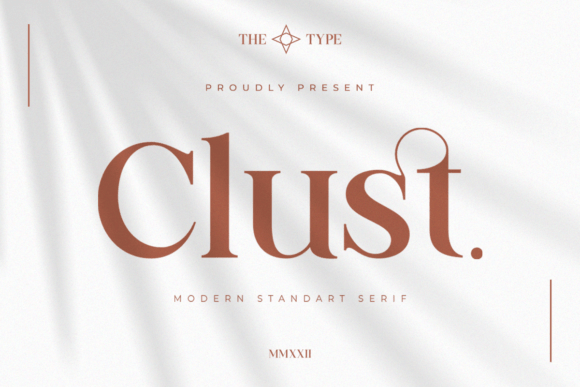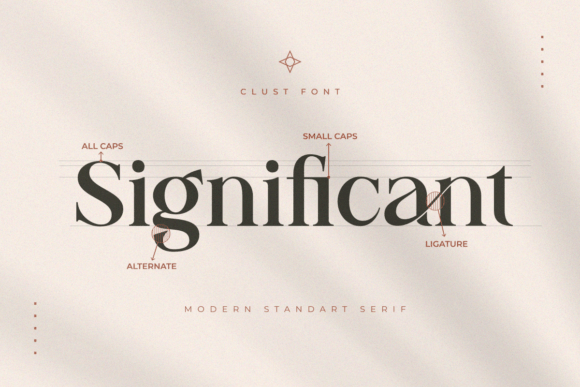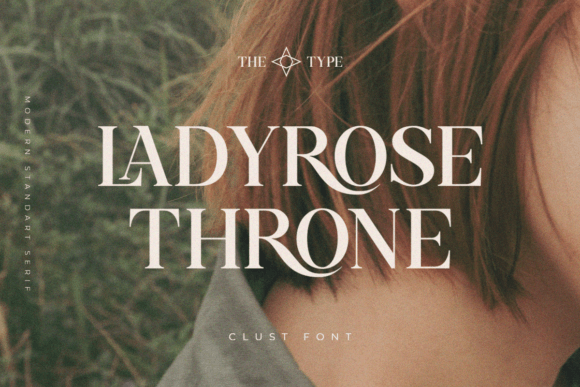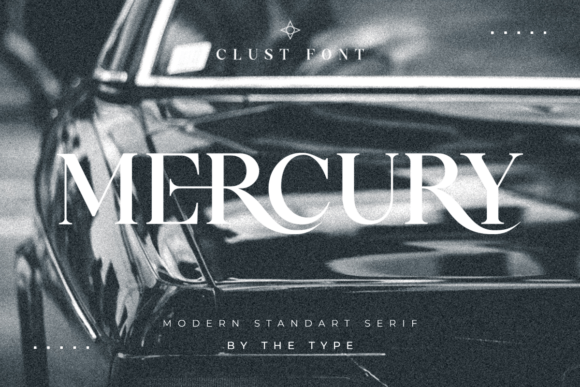
Clust Font: Elegant Serif with Ligatures for Modern Logo Design
About the Clust Font
Welcome to the world of Clust Font, a typeface that will inspire your next great project. Clust – a modern serif font Inspired by elegance and luxury. This font looks like a classic (conservative) serif, which is perfect for texts. It also can be more expressive, playful, and modern with alternative substitutes and ligatures -try to play with them and you will get uniqueness in your project.
Clust’s elegant yet playful nature makes it ideal for branding projects requiring a touch of sophistication, particularly logos, short headlines, and packaging designs where its unique swashes add visual interest. It also works well in posters and invitations, provided the text remains concise. However, avoid using Clust for body copy or lengthy paragraphs; its serif design can hinder readability in extended text. UI applications are also not recommended.
Pairing Clust effectively depends on the desired emphasis. For a classic, balanced feel, consider pairing it with a clean sans-serif like Helvetica Neue or a neutral serif such as Garamond. To enhance its playful side, a geometric sans-serif such as Futura or a slightly quirky script font could be effective. Avoid overly ornate or decorative pairings to prevent visual clutter.
Clust’s personality is best described as sophisticated yet approachable; elegant but not overly formal. Its versatility lies in the contrast between its classic serif structure and the expressive alternatives that allow for a modern, distinctive feel.
Clust Font Usage Examples
Clust Font Example